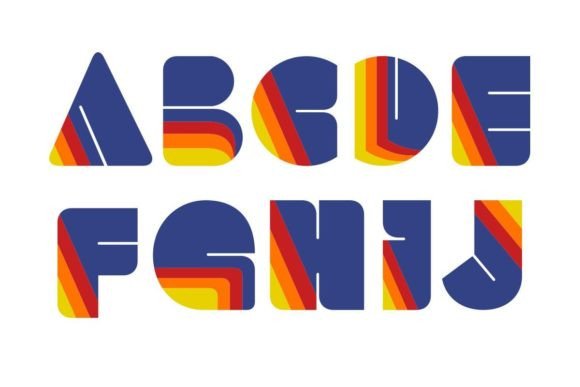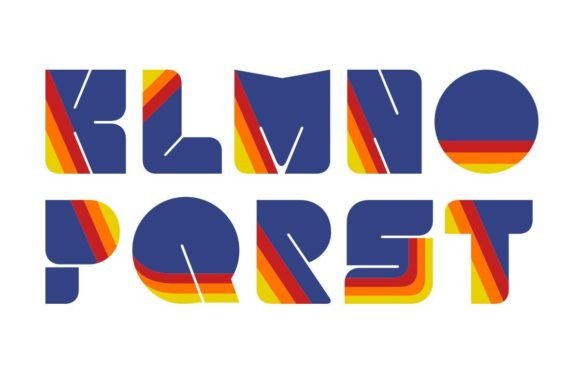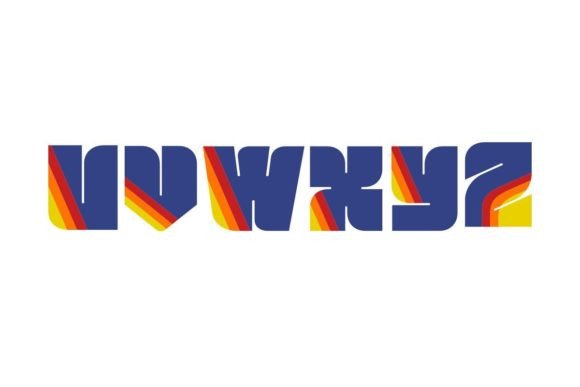
Acto Stripe Font
About Acto Stripe Font
“Acto Stripe” is a bold and playful color display font that exudes a vibrant and retro aesthetic. Inspired by 70’s packaging, its color palette adds a nostalgic touch and creates a memorable vintage feel for your projects. This font is designed to make your artwork stand out and bring a unique character to your designs.
With its bulky and funky appearance, “Acto Stripe” captures the essence of the retro look while incorporating a modern 2000s twist. This combination results in a font that is both nostalgic and contemporary, allowing you to create designs that are visually striking and one-of-a-kind.
By utilizing “Acto Stripe” in your projects, whether it’s posters, t-shirts, or any other creative endeavors, you can evoke a sense of nostalgia and capture the attention of your audience. Let your creativity shine and explore the various possibilities this font offers. The retro-inspired color palette and playful design elements of “Acto Stripe” will undoubtedly add a unique charm to your artwork, making it a memorable and captivating experience for viewers.